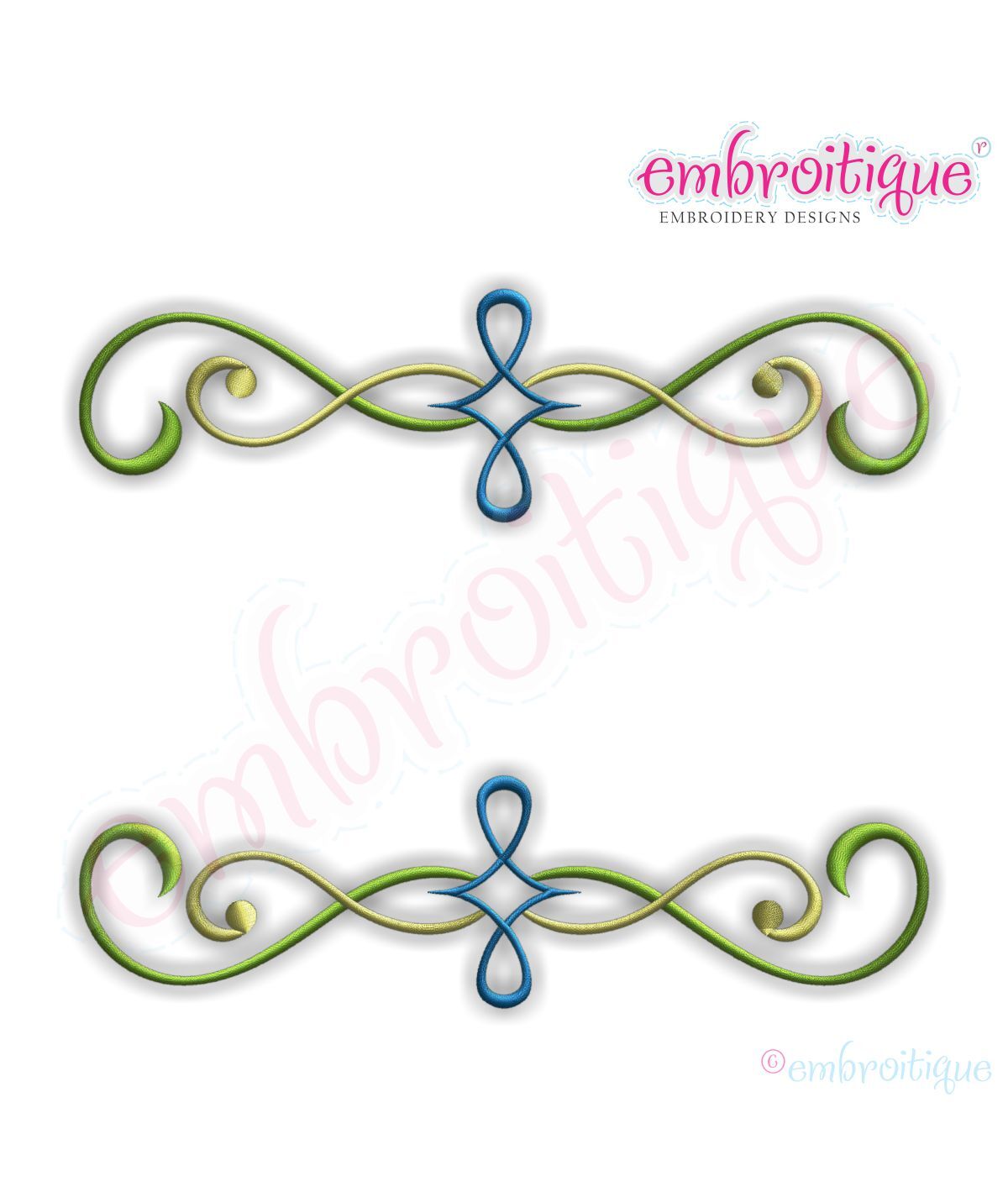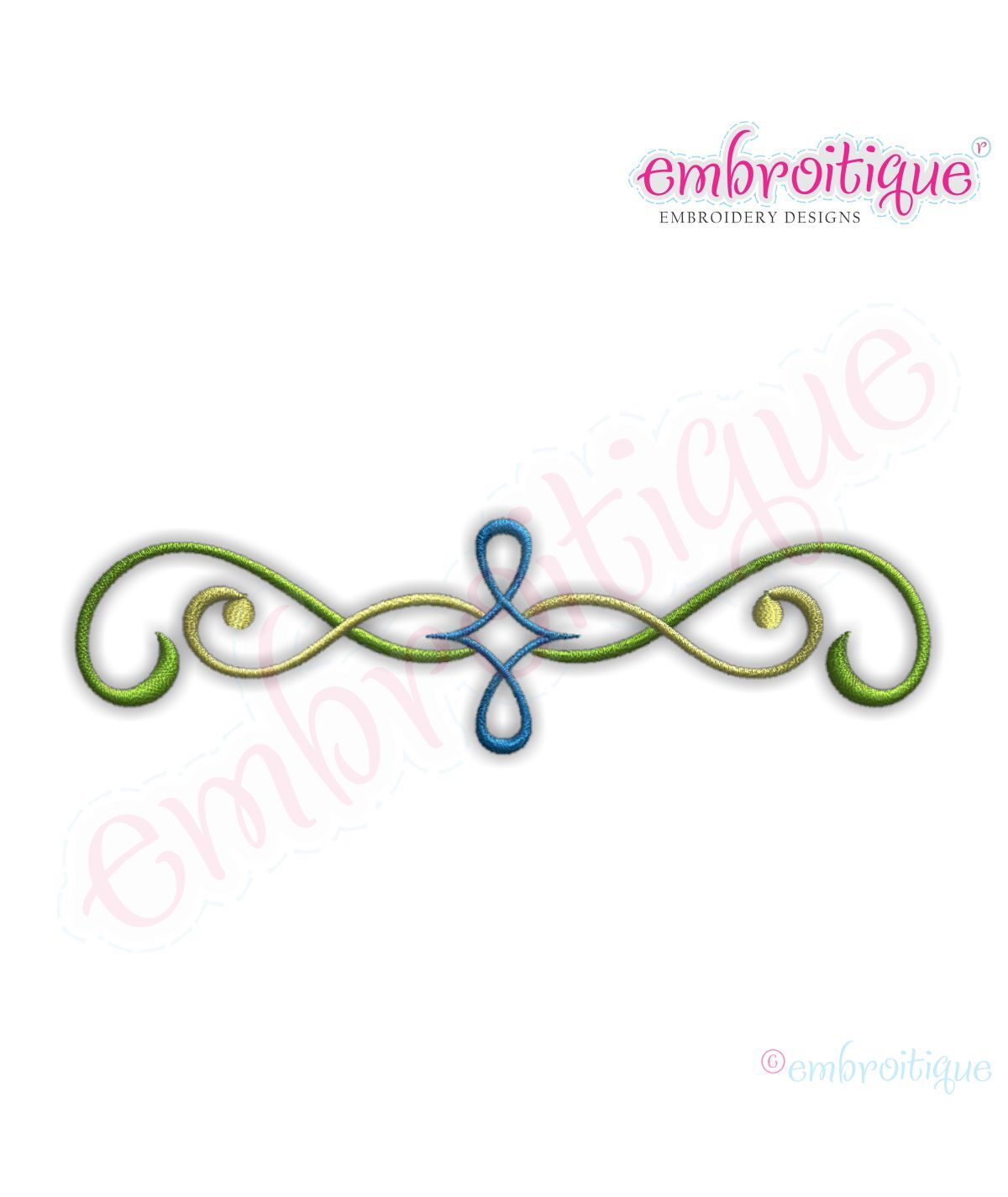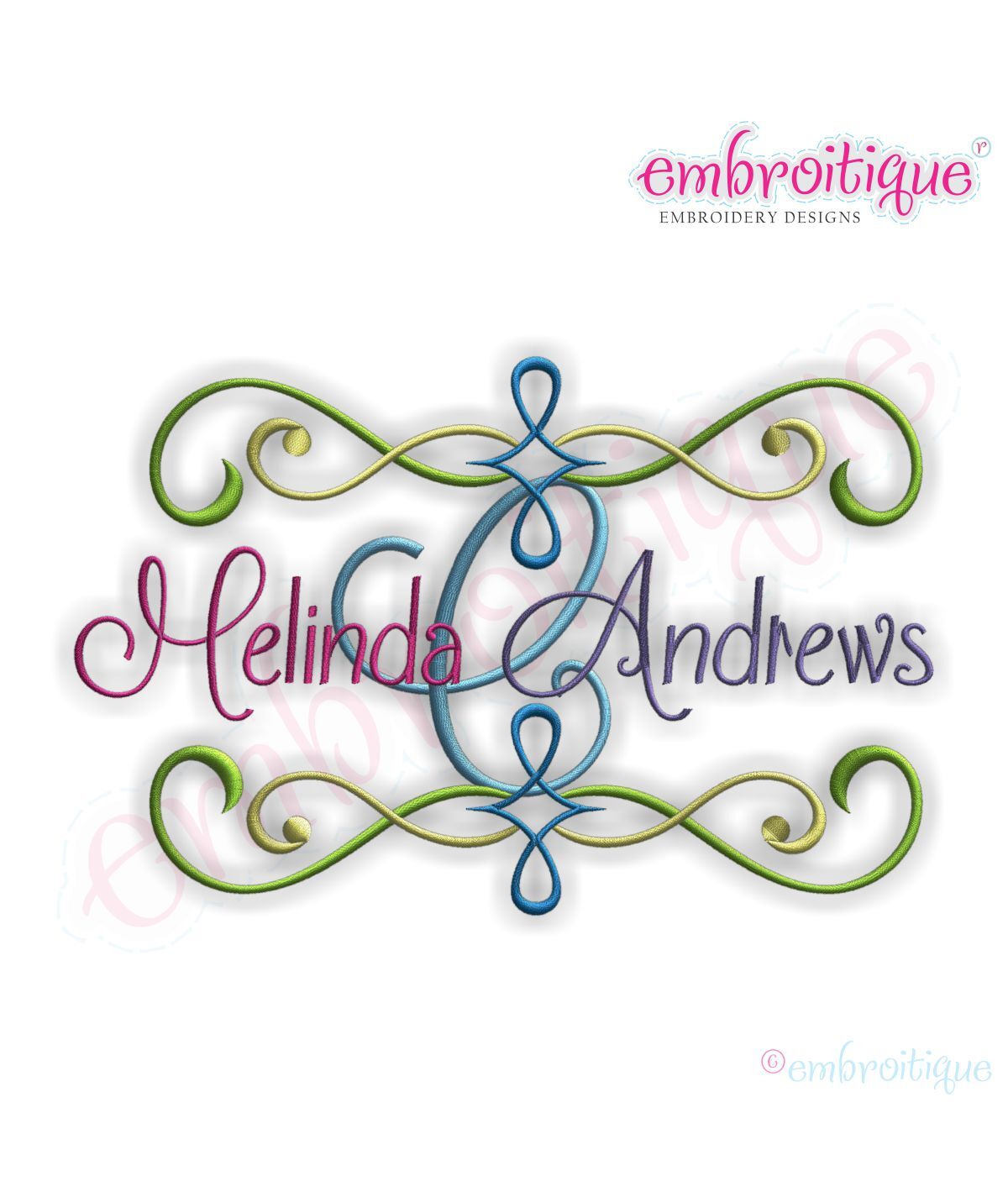
Andrews Font Frame
This is such a beautiful font frame! Perfectly paired with our Mallory Monogram Set. Sold separately. You can also choose to embellish your project with a single flourish. Both options are just beautiful!
Single Flourish
Double Flourish